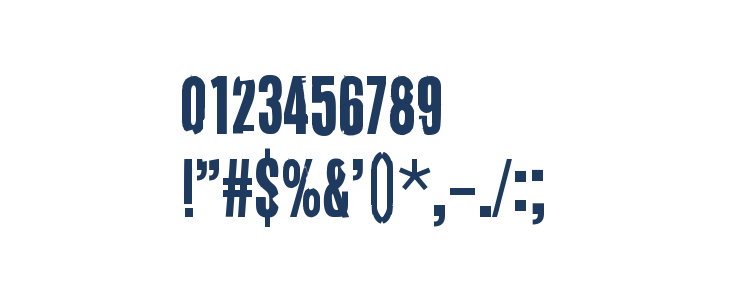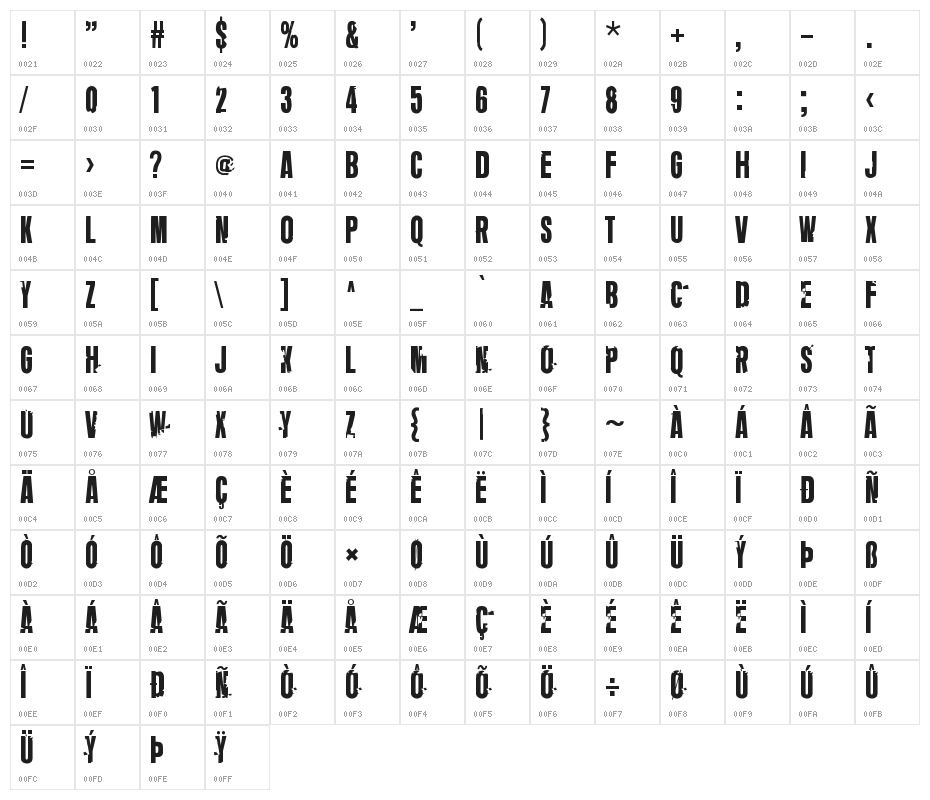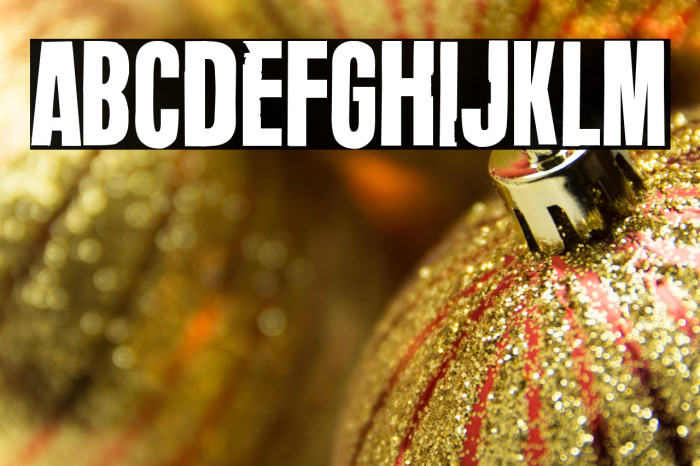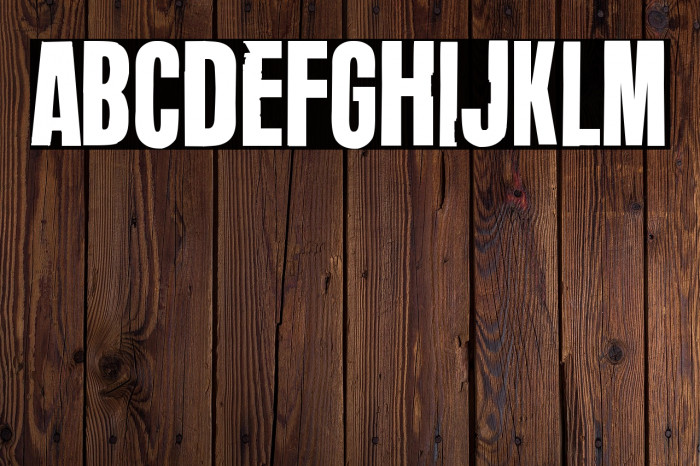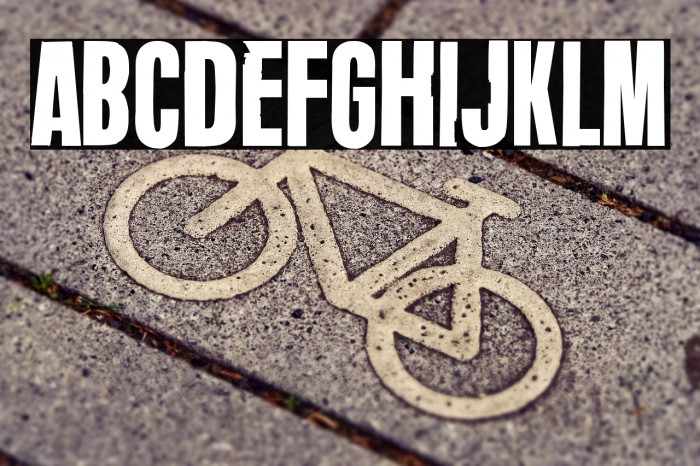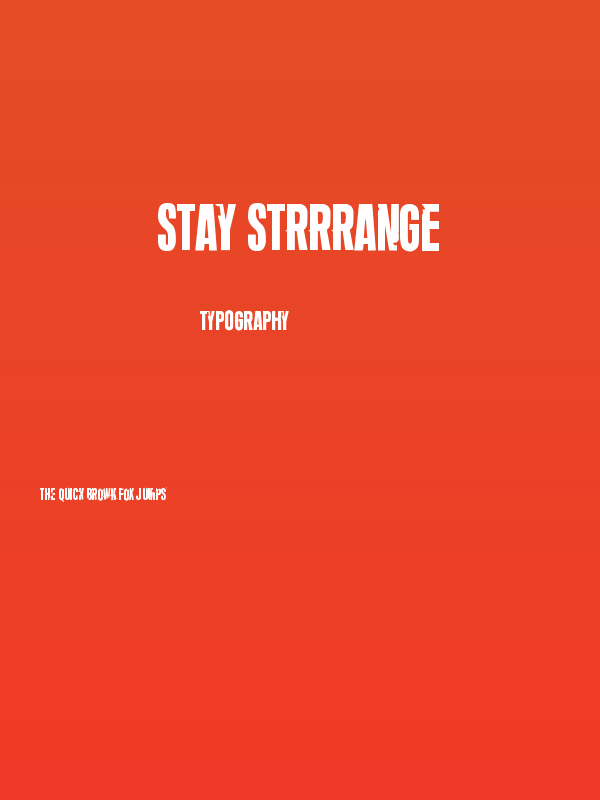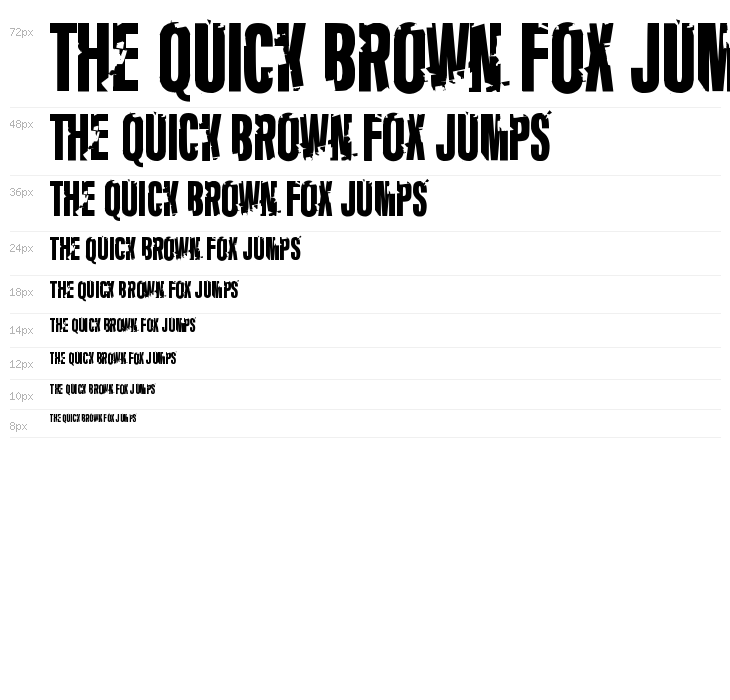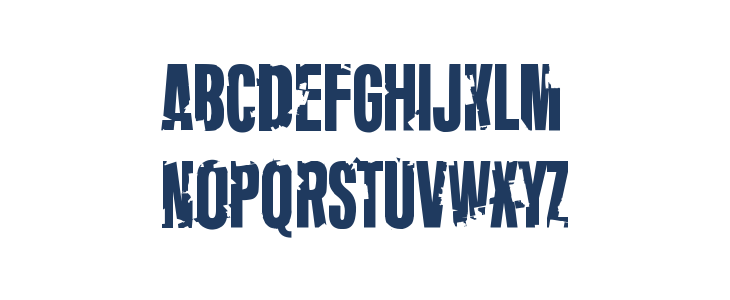
Stay Strrrange Font
Stay Strrrange Description
This font features a bold and distressed style, characterized by its rugged and worn appearance. The uppercase and lowercase letters, along with numbers and special characters, exhibit a unique, grunge-like texture that suggests a sense of decay or erosion. The boldness of the characters is complemented by irregular edges and a slightly chaotic design, making it stand out with a rebellious and edgy vibe. This font is perfect for projects that require a strong, impactful visual statement, such as posters, album covers, or any design that aims to convey a sense of raw energy and attitude.
| Proposed Projects | Ideal for posters, album covers, and designs needing a rebellious, edgy vibe. |